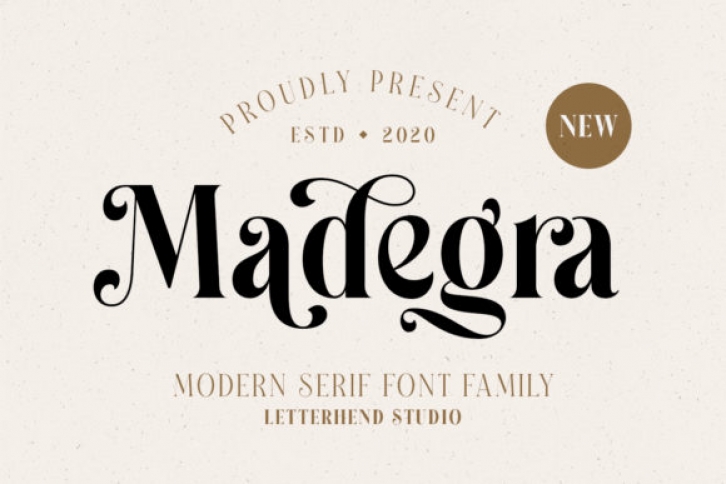
Madegra is an elegant serif font, with an incredibly nostalgic feel. Use this serif font to add that special retro touch to any design idea you can think of! This font is PUA encoded which means you can access all of the glyphs and swashes with ease! It features a varying baseline, smooth lines, gorgeous glyphs and stunning alternates.